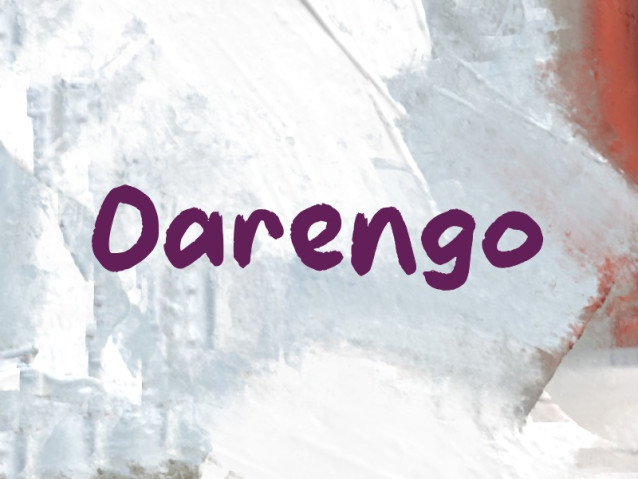
Oarengo Font
Oarengo Font The font conveys energy and personality, working especially well in designs that aim for a casual, emotional, or artistic tone. It stands out best at larger sizes, where the texture and brush details can be fully appreciated.
Classification: Brush Fonts, Decorative Fonts